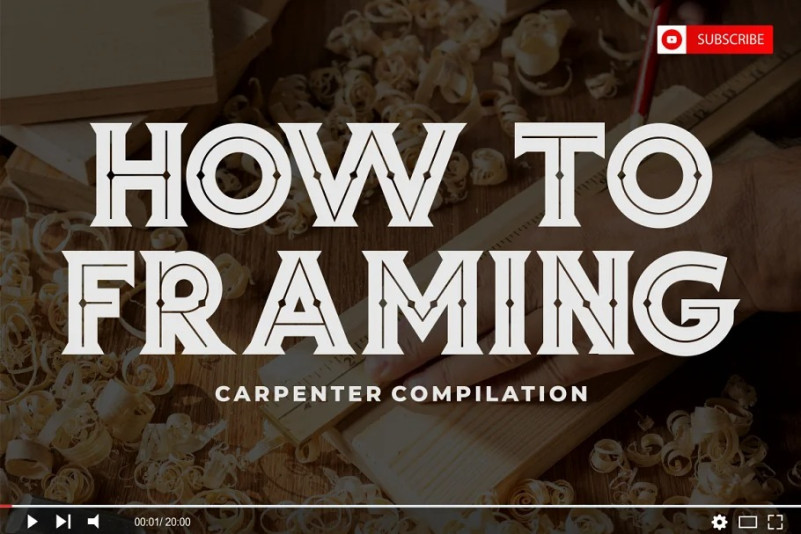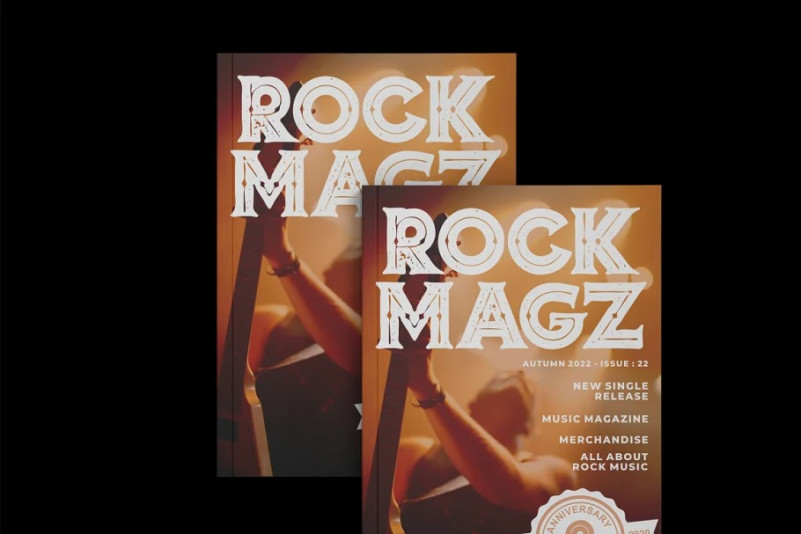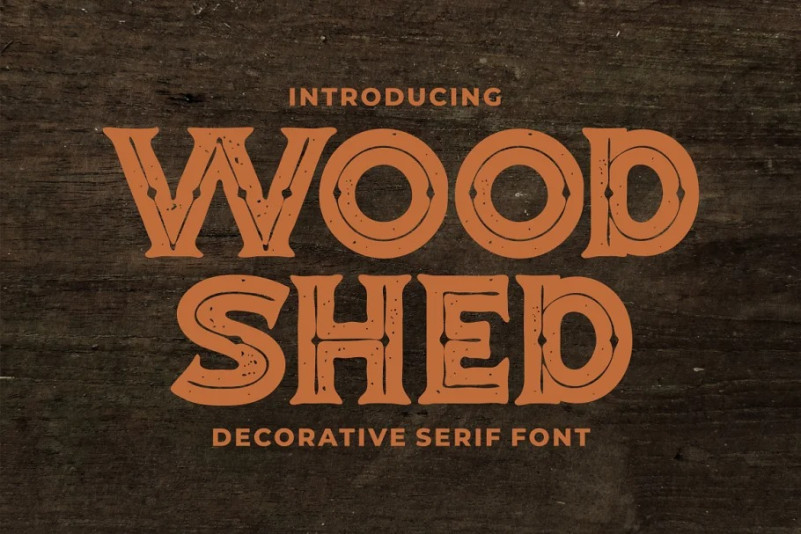
Woodshed Font
Woodshed – Decorative Serif Font. Woodshed have classic decorative, retro and trendy display. Woodshed font inspired by decorative serif of the vintage posters.
But in Woodshed font I combine several variations such as the ligature. It makes Woodshed font even more unique and different. Woodshed is also great for any kind of display purpose from album, cover,poster, label, tshirt, apparel, signage, quote, logo, greeting card,logotype and many more. Woodshed is also support multi language.